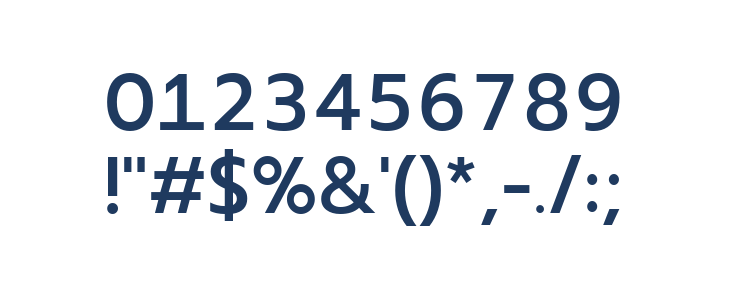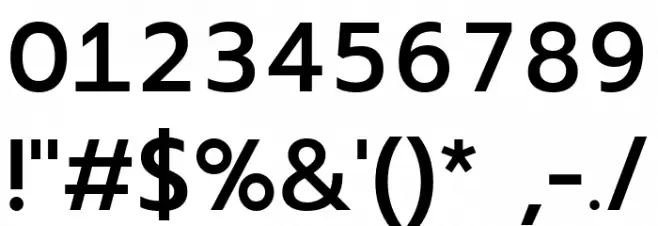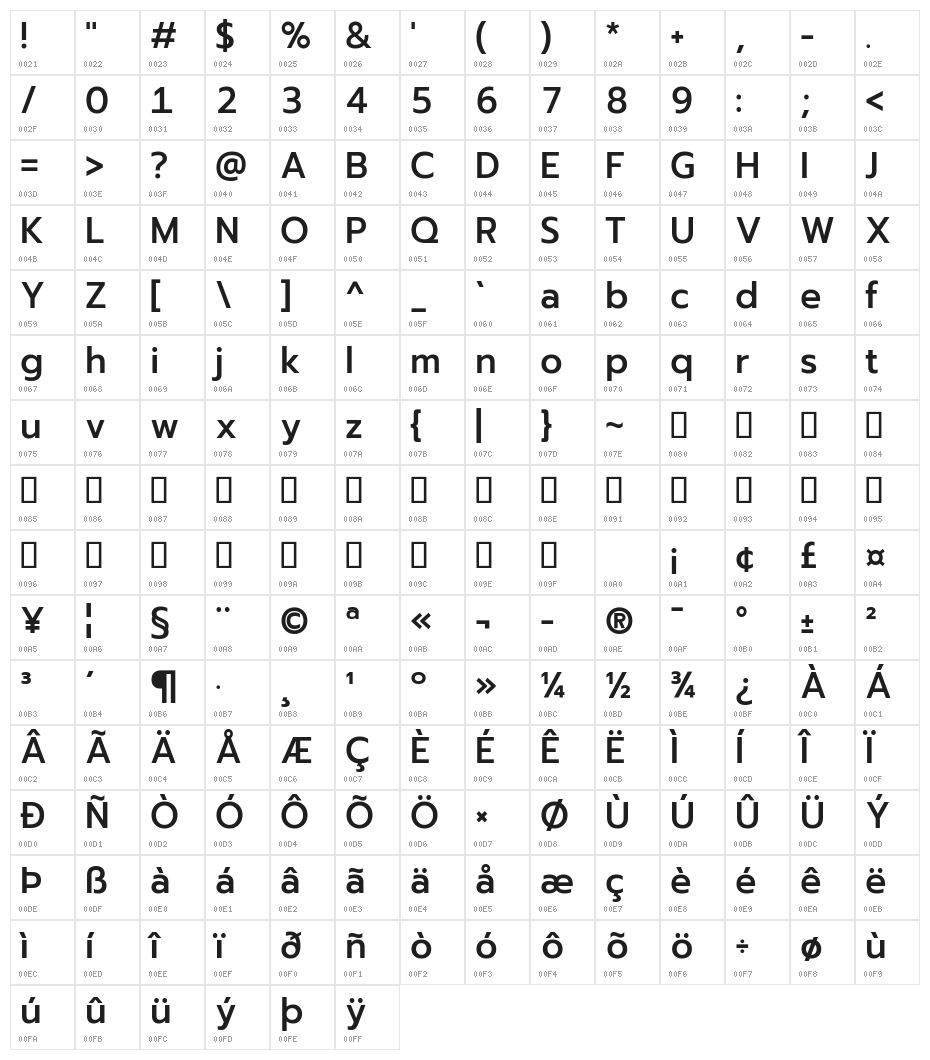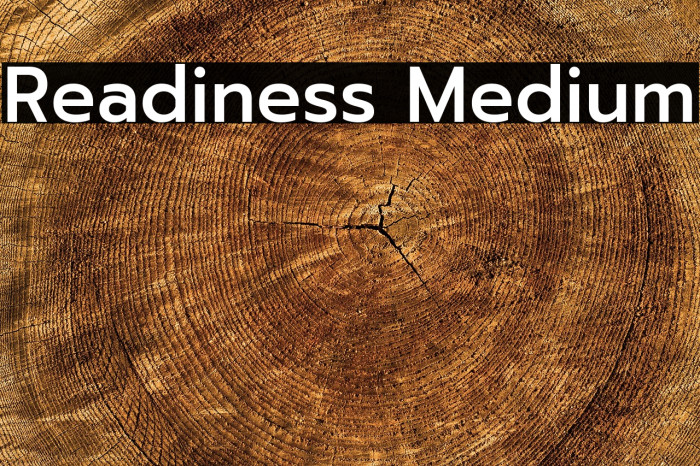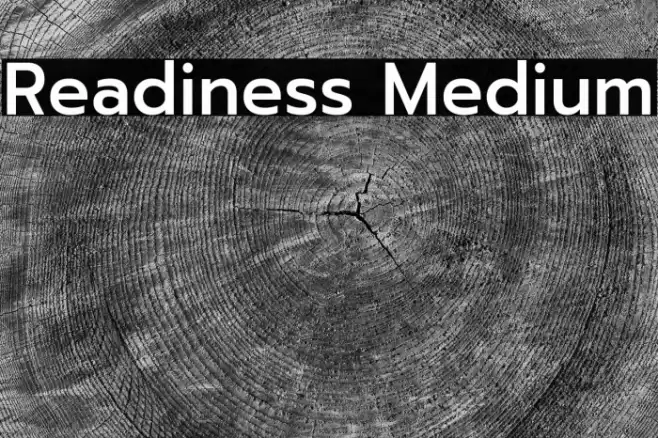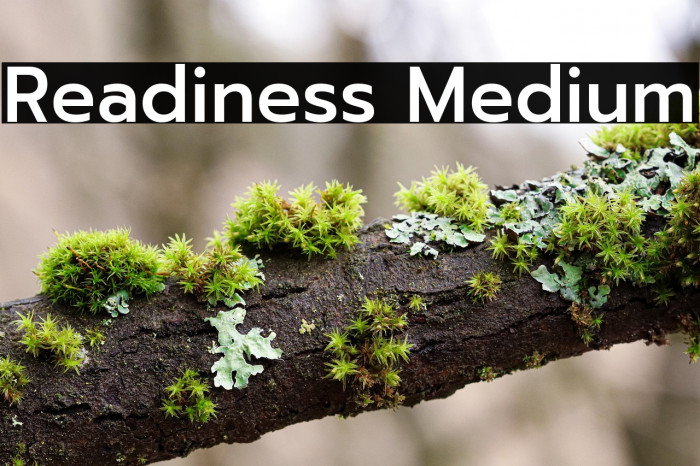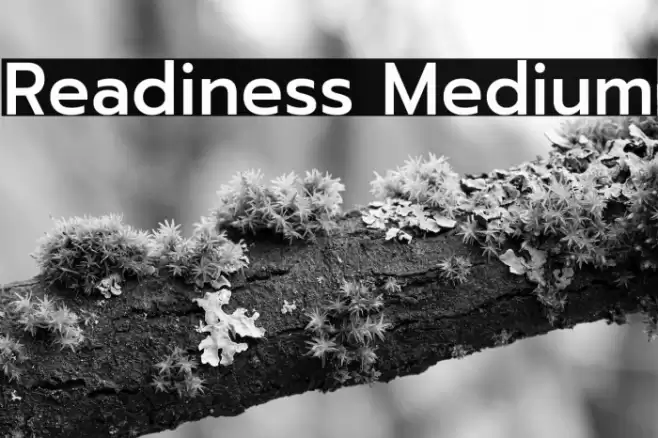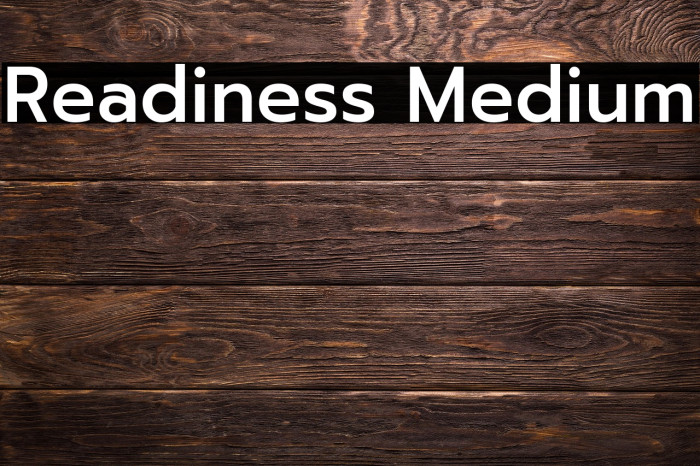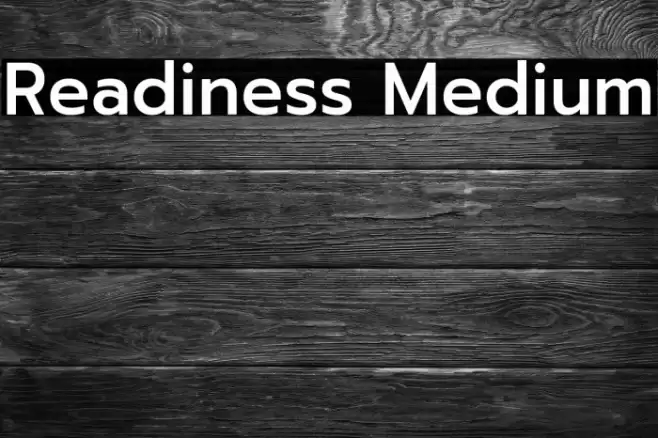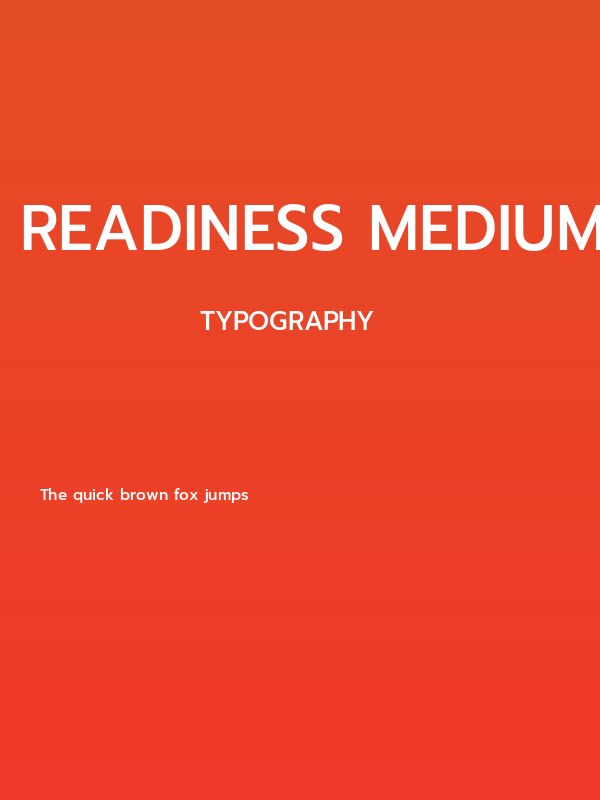
Readiness Medium Font
Readiness Medium Description
This font exhibits a clean and modern sans-serif style, characterized by its geometric shapes and uniform stroke widths. The uppercase letters are bold and assertive, while the lowercase letters maintain a consistent height and spacing, providing a balanced and harmonious appearance. The numerals are clear and legible, making them suitable for various applications. Special characters are well-defined, enhancing the font's versatility. The overall design is minimalistic, focusing on readability and functionality, making it ideal for digital and print media.
| Proposed Projects | Ideal for corporate branding, web design, user interfaces, and editorial layouts. |